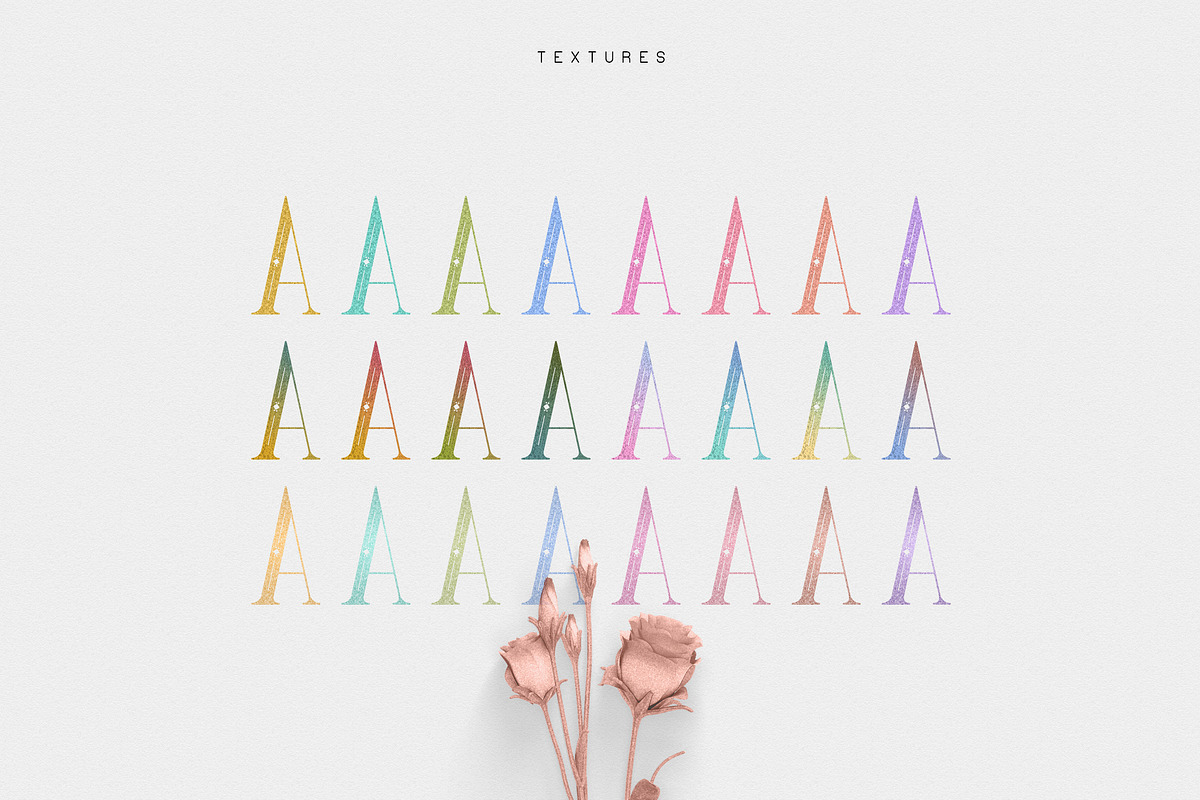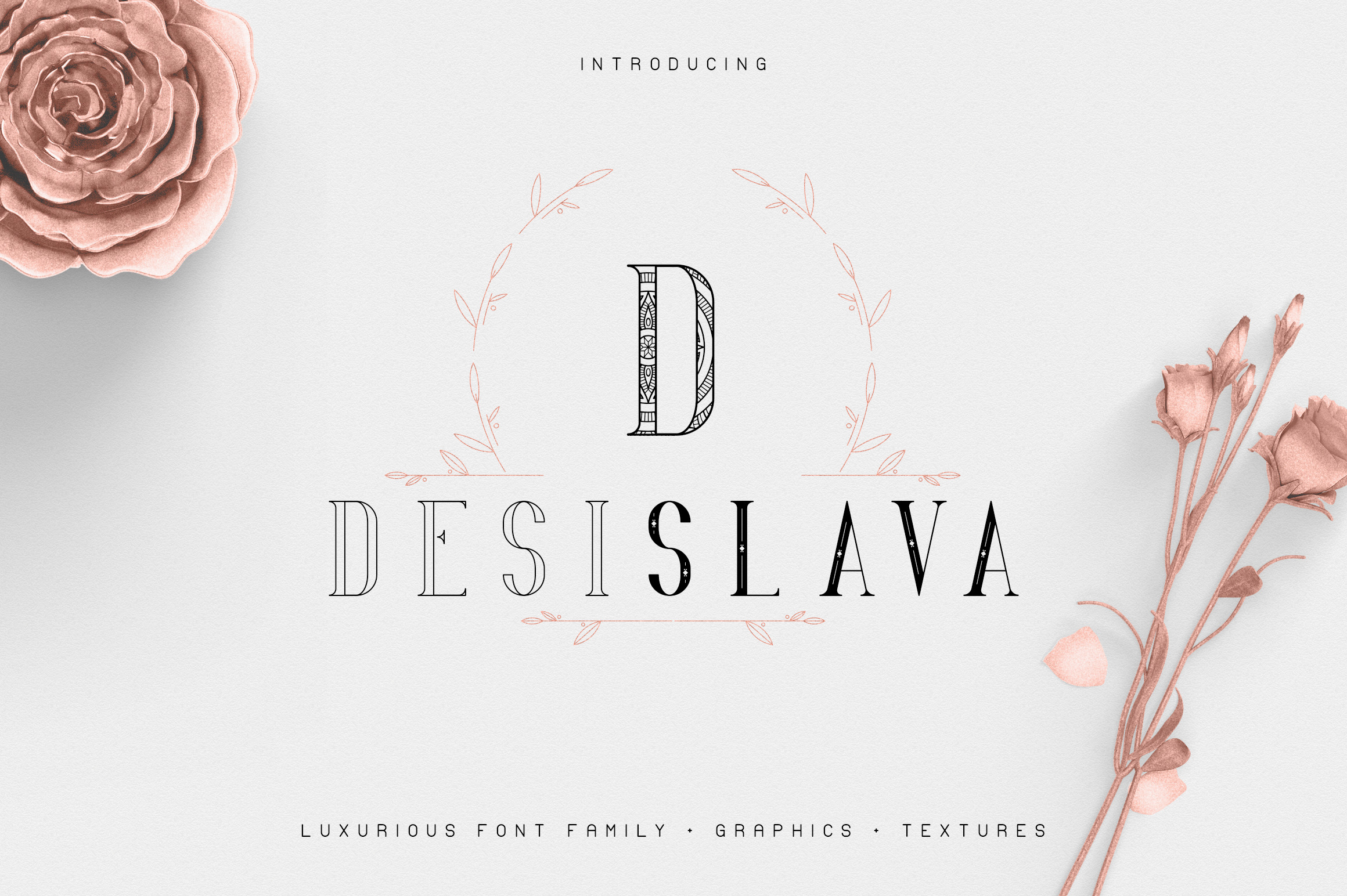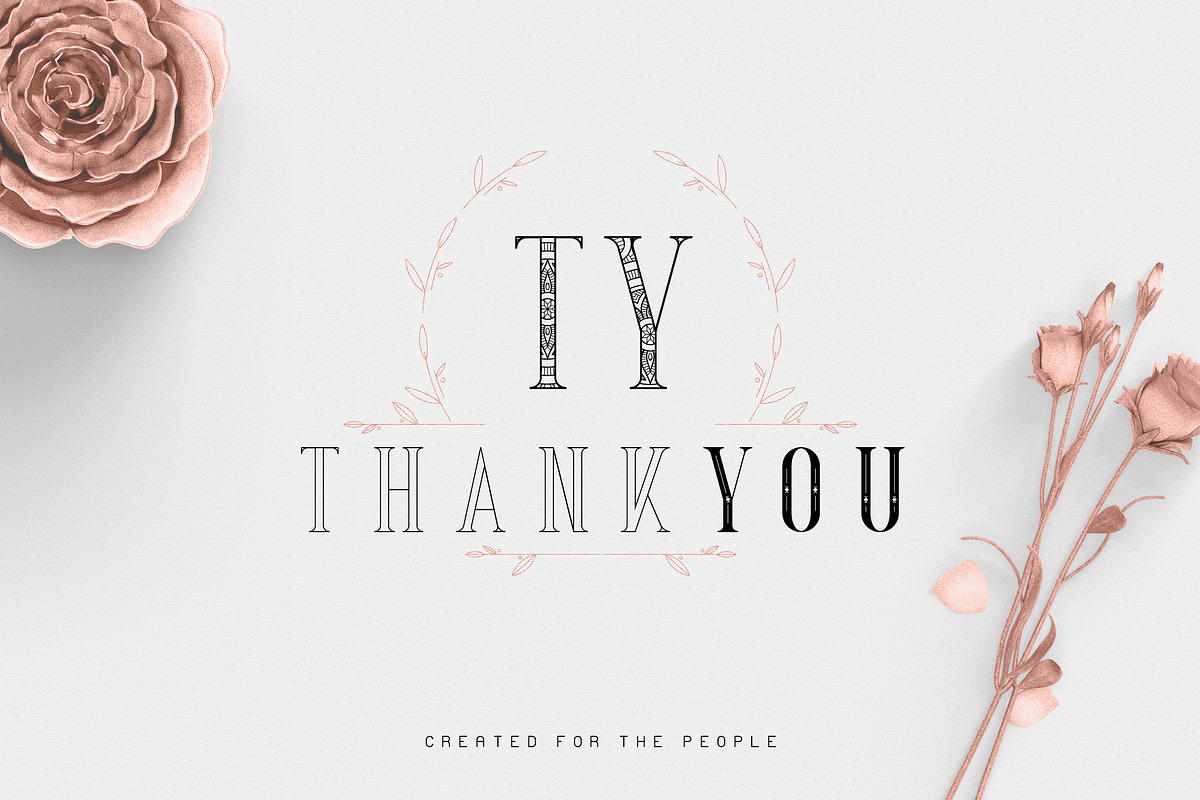
Desislava Luxurious Typeface + Bonus
Desislava is clean, sophisticated typeface with 5 fonts, 26 vectors, 24 textures and multilingual support. It's a very versatile font that works great in large and small sizes.
Desislava is perfect for branding projects, home-ware designs, product packaging, magazine headers - or simply as a stylish text overlay to any background image.
- Uppercase, numeral,punctuation & Symbol
- Outline
- Rough
- Ornament
- Ornament Two
- 26 Vector elements
- 24 textures